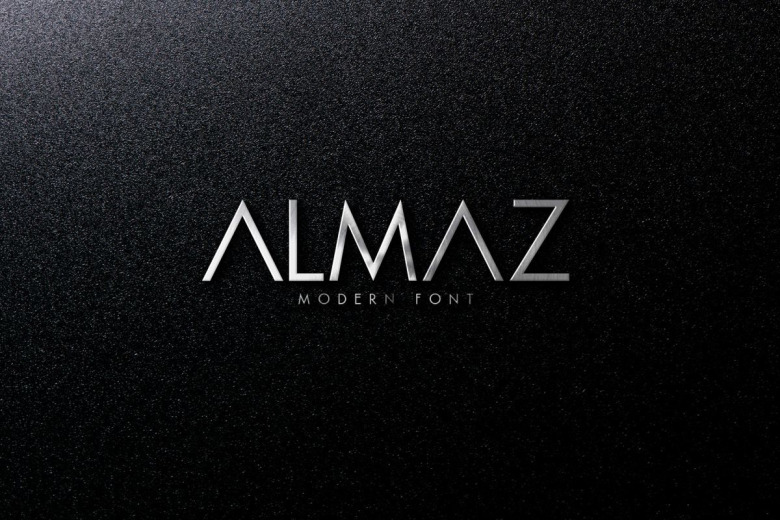
Almaz Font
Introducing Almaz Display Font is a Futuristic Sans Serif font created by Almaz.id with strong and challenging nuances. Almaz clean lines and sharp edges make it a perfect, after installing on the computer you can create posters, web graphics, game graphics, t-shirts, videos, signs, logos and more. Plus, the different weights make it a stellar option for branding and web use looks really beautiful with condensed spacing as well.
Almaz Sans Serif Font